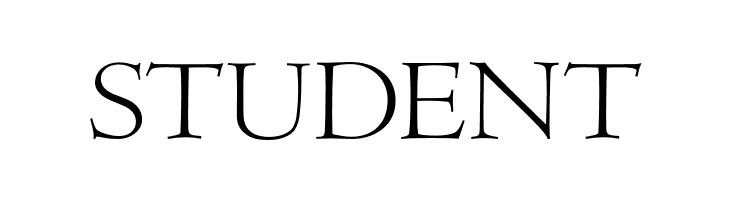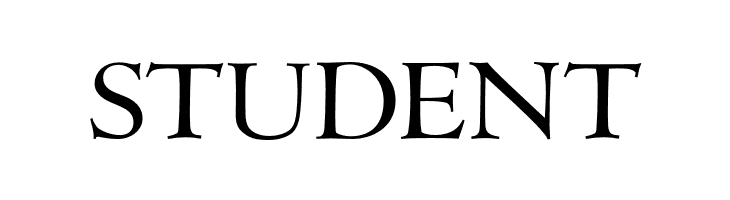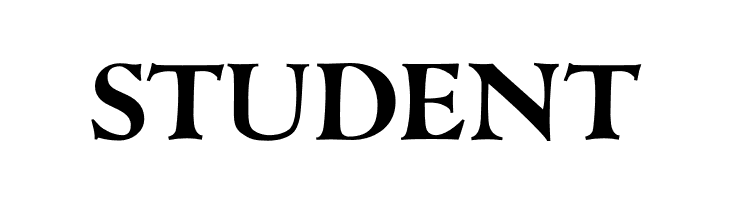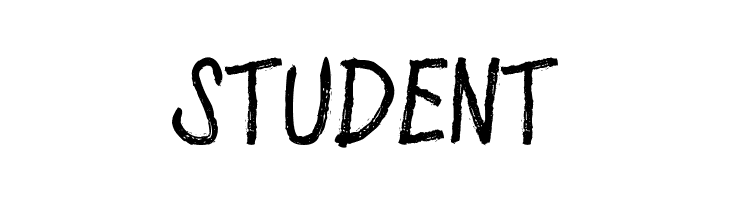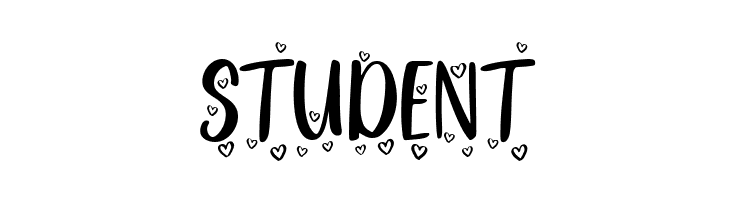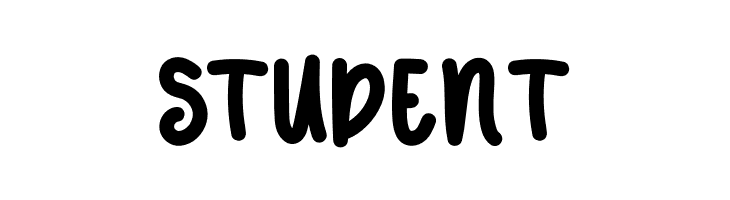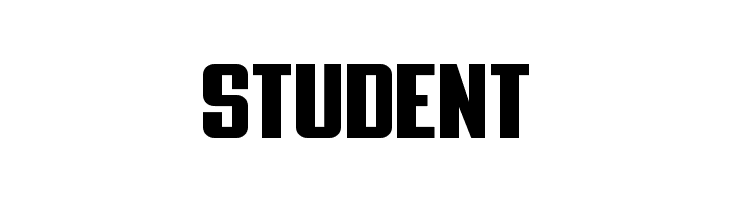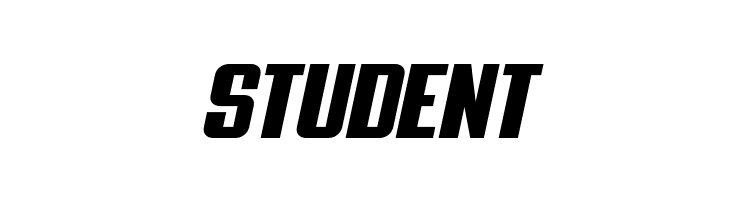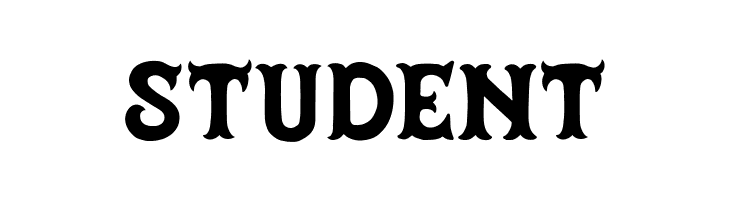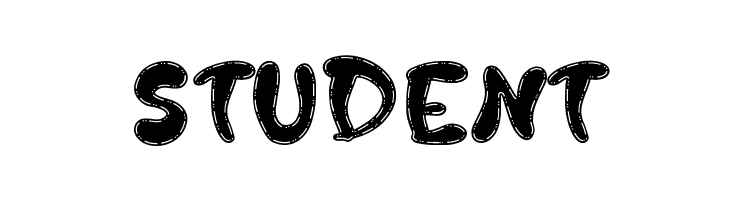
A bold, high-contrast serif font with dramatic and angular serifs.
A classic serif font with elegant, thin strokes and subtle curves.
A classic serif font with semi-bold weight and elegant, flared serifs.
A bold, decorative font with intricate serifs and high contrast strokes.
An ornate, decorative font with intricate geometric patterns and a historical aesthetic.
A playful, bubbly font with a hand-drawn, patchy texture.
A bold, playful handwritten font with rounded strokes and a lively appearance.
A bold, block-like font with thick, consistent strokes and a slightly condensed width.
A bold, italicized font with high contrast and dynamic slant.
A bold, hand-drawn font with a textured, artistic style.
A bold, vintage-style font with ornamental serifs and a gothic flair.
A playful, heart-accented font with bold, rounded characters and a hand-drawn style.
A segmented, geometric font inspired by digital displays.
A digital display font with segmented, geometric characters.
A lively, expressive handwritten font with fluid, dynamic strokes.
A dot-based font with a digital, modern aesthetic.
A digital, segmented font inspired by classic LED displays.
A bold, geometric font with angular shapes and high contrast, ideal for decorative use.
A bold, rounded font with a playful, retro-modern style.